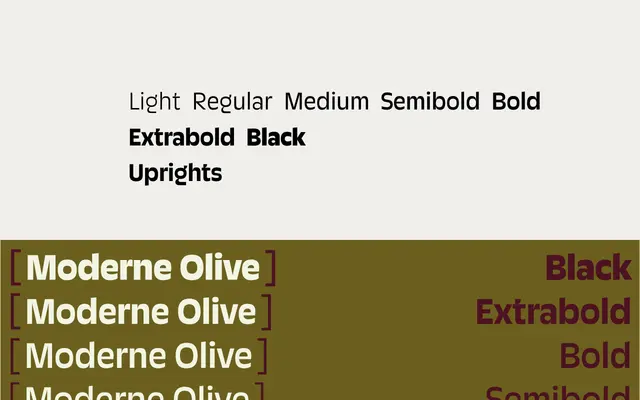
Moderne Olive
Rosetta · David Březina · 2026
A reverse-contrast sans by David Březina that reworks the Antique Olive tradition through squarish geometry and high-tension pinched strokes.
Derived from Rosetta's experimental Only Yours project, the family spans seven weights from Light to Black with a variable font axis covering the full range. Its reverse-contrast approach updates Roger Excoffon's Antique Olive lineage with regularised, simplified forms and tightly pinched junctions that prevent stroke collisions at heavier weights. An unusually rich feature set includes circled numerals in four styles, combinable multilingual pictograms activatable in French, Italian, English, Spanish and Czech, and extended Latin coverage across 330 languages.
Moderne Olive is a reverse-contrast sans-serif drawing on the tradition of Antique Olive by Roger Excoffon, distinguished by squarish forms and pinched high-tension strokes at junctions rather than conventional stroke modulation.